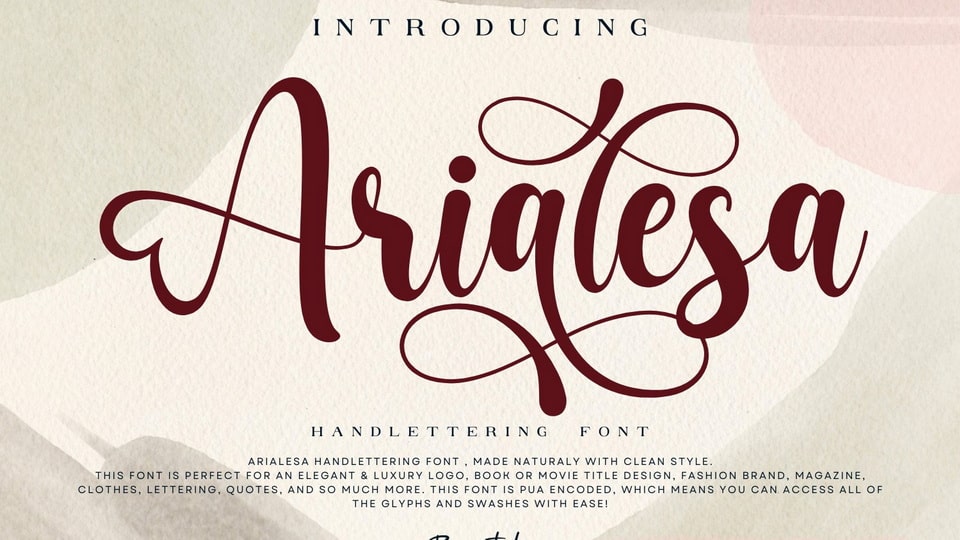
Download Arialesa font, a romantic modern calligraphy typeface, made with natural flow and clean style. This font is perfect for an elegant logo, wedding design.